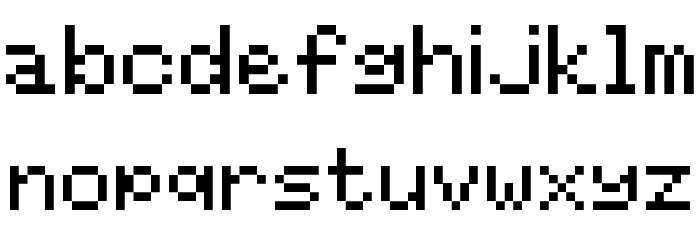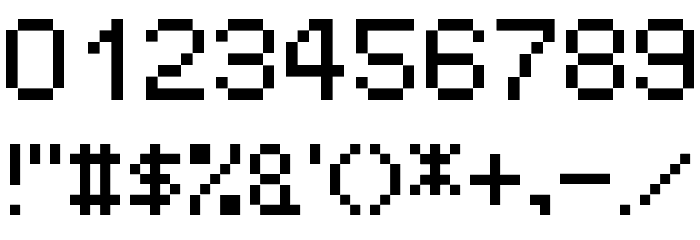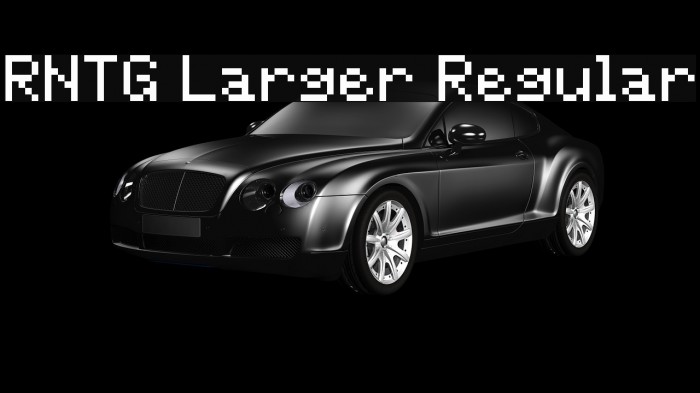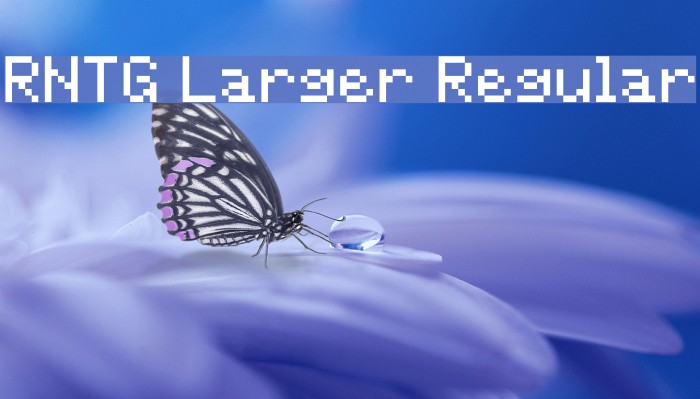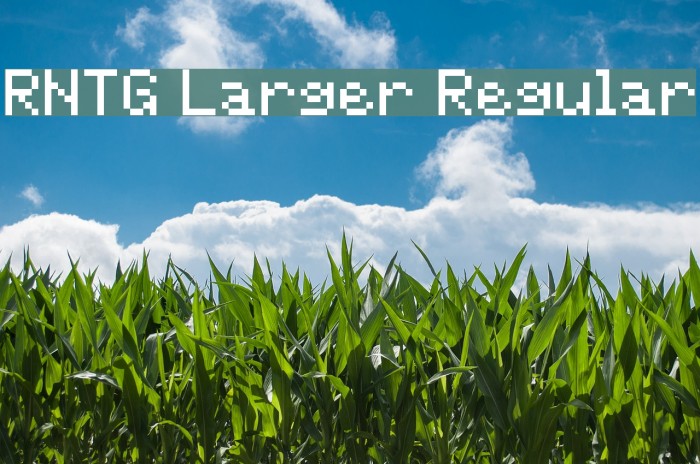
RNTG Larger Regular Font
This font features a pixelated, blocky design reminiscent of early digital displays and retro video games. Each character is constructed with a grid-like appearance, emphasizing a uniform, geometric structure. The uppercase and lowercase letters maintain a consistent height and width, creating a cohesive look. Numbers and special characters follow the same pixelated style, ensuring visual harmony across all elements. The font's simplicity and clarity make it highly legible, even at smaller sizes, while its nostalgic aesthetic adds a playful, vintage charm.
A pixelated, retro-style font with a blocky, geometric design.
- Proposed Projects: Ideal for retro video game graphics, digital art projects, tech-themed posters, and nostalgic branding.
- Overall Style: Vintage
- Use Case: Logos, Headlines, Digital displays